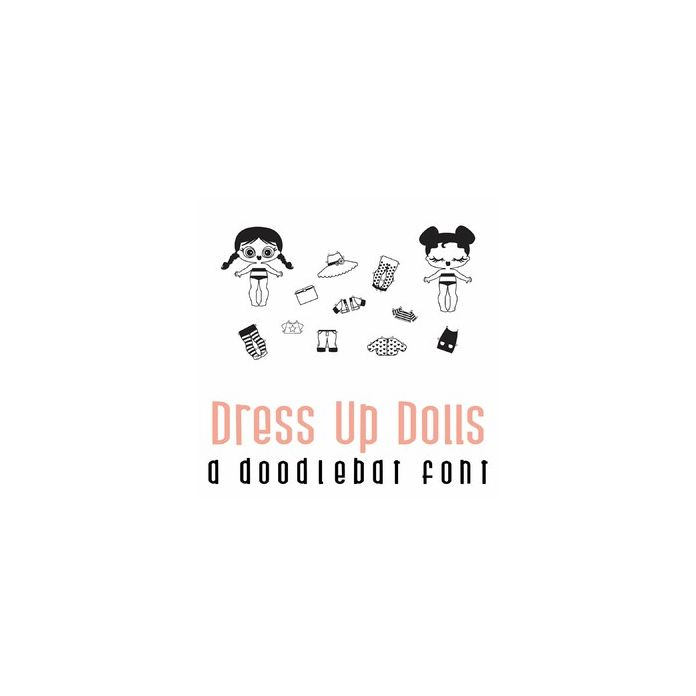
Dress Up Dolls Doodlebat Font
This adorable doodlebat font features 32 images of everything you need to make your own dress up dolls! Dress up dolls has images A-Z plus 0-5 glyphs.